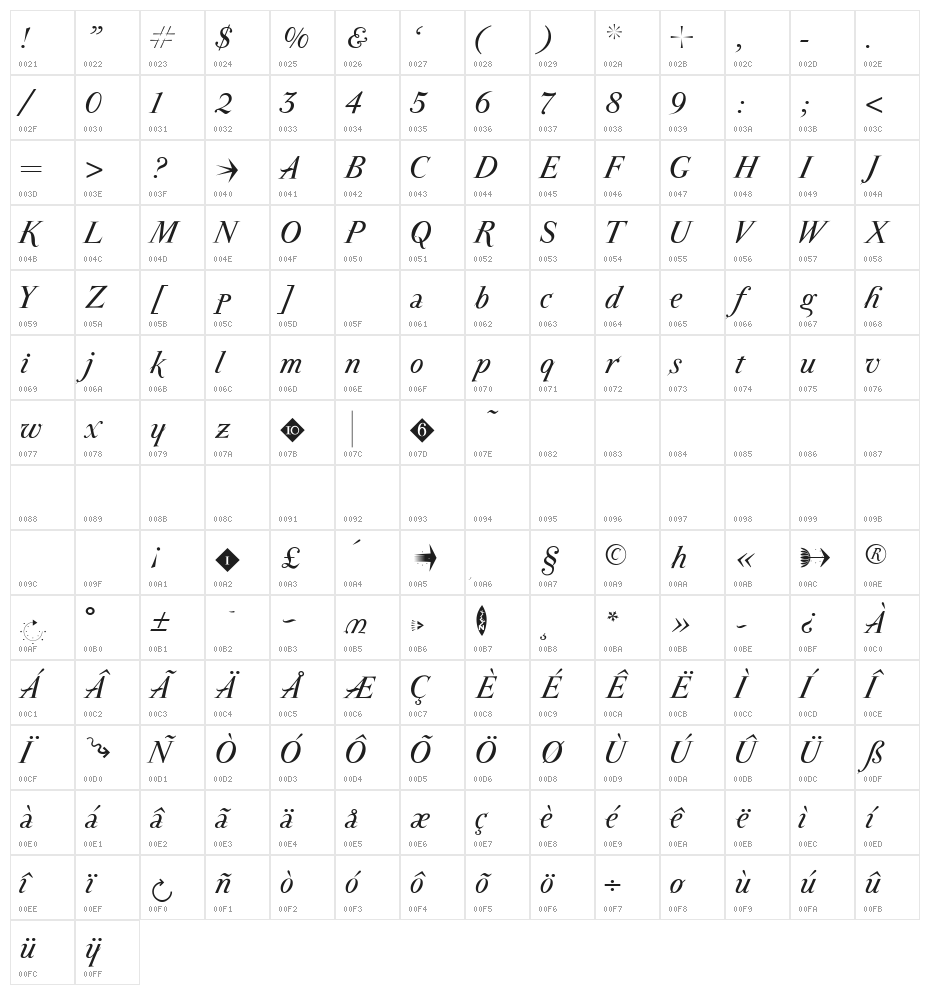
ParmaPetit-Italic Font
This elegant and sophisticated font features a classic italic style with graceful curves and a refined appearance. The letters are slightly slanted, giving a sense of motion and fluidity. The serifs are delicate yet pronounced, adding a touch of formality and tradition. The overall design is balanced and harmonious, making it suitable for a variety of applications where a touch of elegance is desired. The numbers and special characters maintain the same stylistic elements, ensuring consistency across all text elements.
| Use Case | Headlines, Invitations, Editorials |
| Proposed Projects | Ideal for wedding invitations, formal event programs, luxury branding, and editorial design. |